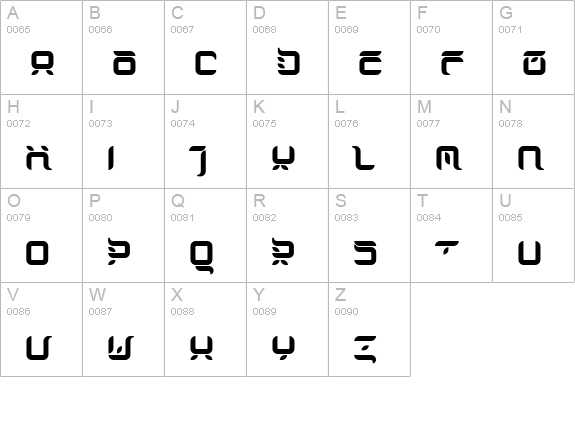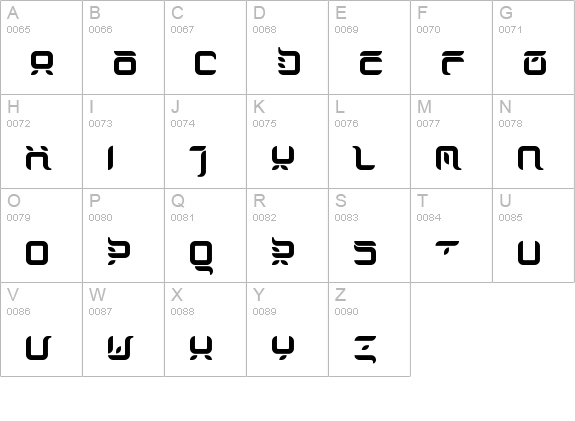
DorisOrange is a stylish and modern font that exudes elegance and sophistication. With its sleek lines and unique design, this font is perfect for adding a touch of class to any project. Whether you're creating a logo, designing a website, or crafting a print layout, DorisOrange is sure to make a statement. The best part? DorisOrange is completely free to download at FontsMarket.com. That's right, you can get your hands on this stunning font without spending a penny. So why wait? Elevate your designs with DorisOrange today and see the difference it can make.